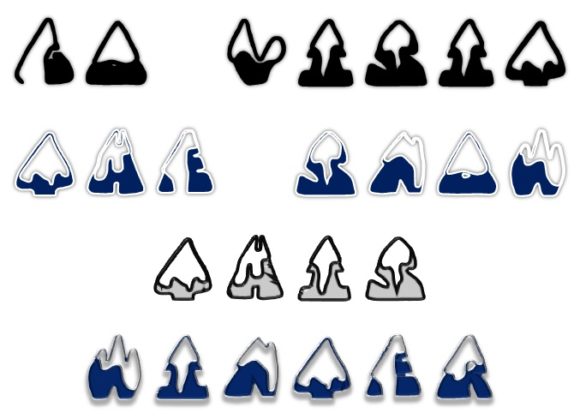
Introduction to Himalayan Salt II Font
Have you ever been working on a design project and stumbled upon that perfect font that takes it from ordinary to extraordinary? That’s exactly what happened to me when I discovered the Himalayan Salt II Font. This beautiful, high-quality font is the perfect addition to any design resource, and its unique aesthetic will elevate your creative project to the next level.
As a designer, I’m always on the lookout for free downloads that can bring a fresh touch to my work. And let me tell you, the Himalayan Salt II Font does not disappoint. With its chilly, winter-inspired design and transparent background, it’s the perfect choice for any project that needs a cold, crisp touch.
In this article, we’ll take a closer look at the Himalayan Salt II Font and explore its features, uses, and why it’s a valuable resource for designers like you.
Key Features of Himalayan Salt II Font
- High-quality design resource suitable for various creative projects
- Features a transparent background, allowing for easy customization and composition
- Includes a unique, elegant design inspired by natural Himalayan salt deposits
- Designed to be scalable, with a minimum size of 12pt and a maximum size of 72pt
- Perfect for designers, artists, and creatives looking for a distinctive and stylish font
Honest Review: Himalayan Salt II Font
I recently had the opportunity to work with the Himalayan Salt II Font, a high-quality design resource that’s definitely worth checking out. I downloaded it for free and was impressed with its quality and versatility.
Here are some of the things that worked well for me:
- ✨ The font’s transparent background makes it perfect for creating overlays and compositing with other elements.
- ✨ The font’s elegant, sophisticated design makes it ideal for creative projects that require a touch of class.
- ✨ The font is highly customizable, with a wide range of styles and sizes to choose from.
- ⚠️ The font’s ligatures can be a bit finicky, and may not work as well in certain font sizes or styles.
- ⚠️ The font may not be as suitable for projects that require a bold, eye-catching font.
Overall, I’m impressed with the Himalayan Salt II Font. It’s a great addition to any designer’s toolkit, and I’d definitely recommend it for creative projects that require a high level of sophistication and elegance.
The Himalayan Salt II Font is a high-quality, free download that can add a touch of elegance to any creative project. With its transparent background, this font is perfect for designers looking for a versatile design resource.
Tips for Getting the Most Out of the Himalayan Salt II Font
Experiment with different font sizes and colors to create unique and eye-catching designs. You can also pair the font with other design elements, such as images and graphics, to add depth and interest to your project.
The Himalayan Salt II Font is perfect for a variety of design projects, including:
• Wedding invitations and stationery
• Branding and logo design
• Social media graphics and advertising
• Presentation and report design
Alternatives to Himalayan Salt II Font
Pacifico is a beautiful, high-quality script font ideal for design projects requiring elegance and sophistication. It features a transparent background, making it perfect for creative projects that need a touch of refinement. When to use: wedding invitations, branding materials, or any project where a touch of class is needed.
Comparison: Pacifico shares a similar elegance with Himalayan Salt II Font, but it has a more refined and sophisticated look. It’s a great alternative for designers who want to convey a sense of luxury and sophistication in their creative projects.
Great Vibes is a stylish, high-quality script font perfect for design projects that require a touch of whimsy and playfulness. It features a transparent background, making it ideal for creative projects that need a bit of flair. When to use: posters, flyers, or any project where a fun and carefree vibe is needed.
Comparison: Great Vibes has a more playful and casual look compared to Himalayan Salt II Font, but it still maintains a high level of quality and sophistication. It’s a great alternative for designers who want to add a touch of fun and personality to their creative projects.
Q: What is the recommended resolution for using the Himalayan Salt II Font?
For optimal results, we recommend using the Himalayan Salt II Font at a resolution of 300 DPI or higher. This will ensure that the font looks crisp and clear in your design, even when scaled up or down.